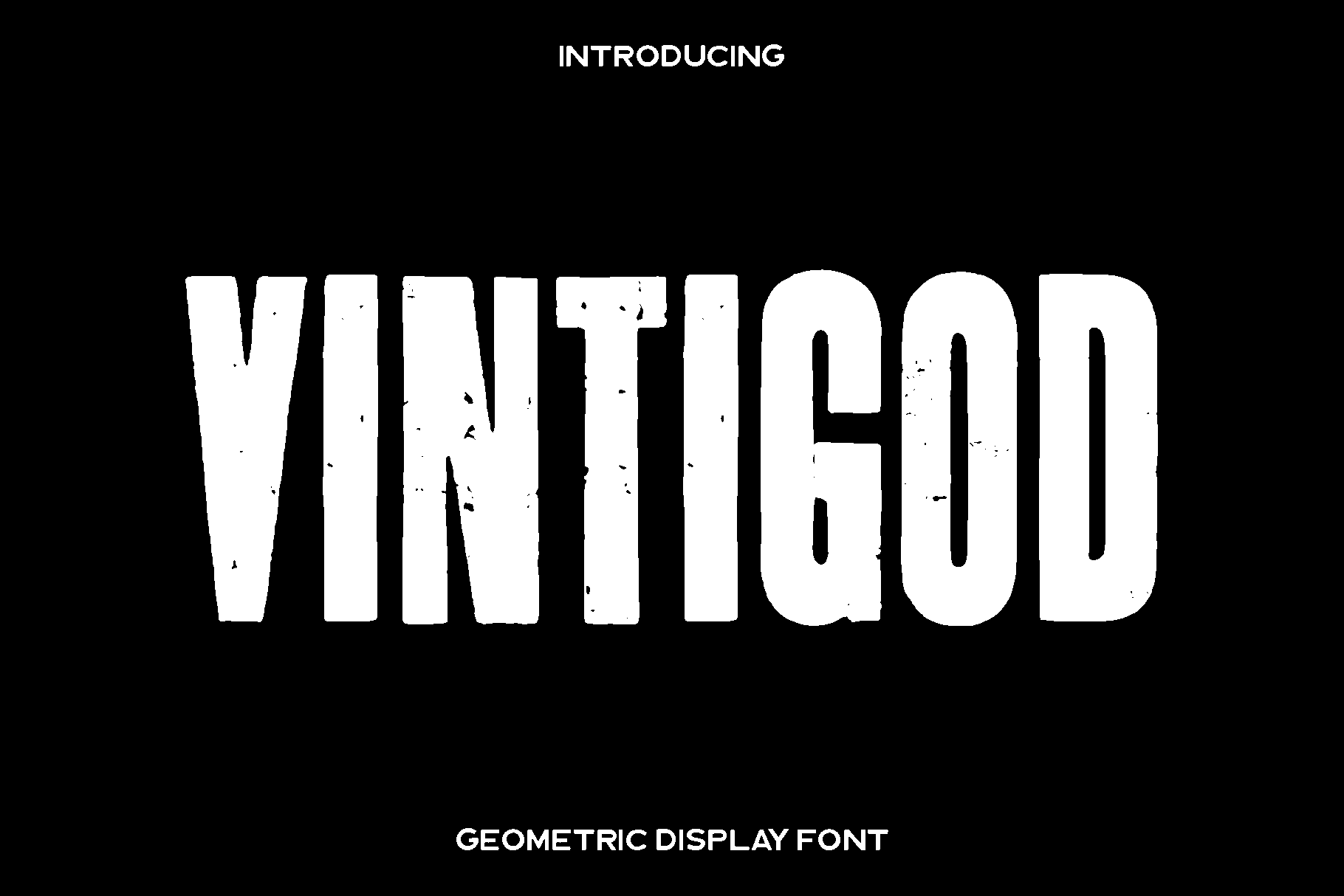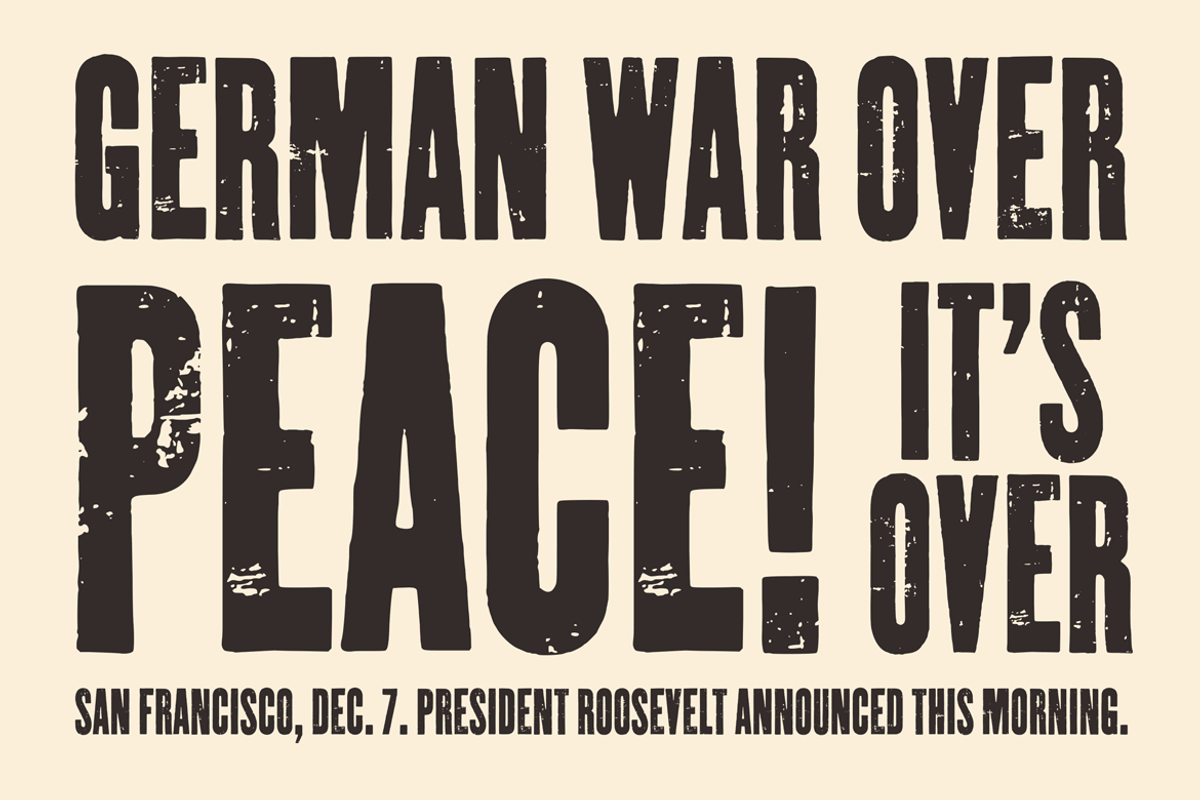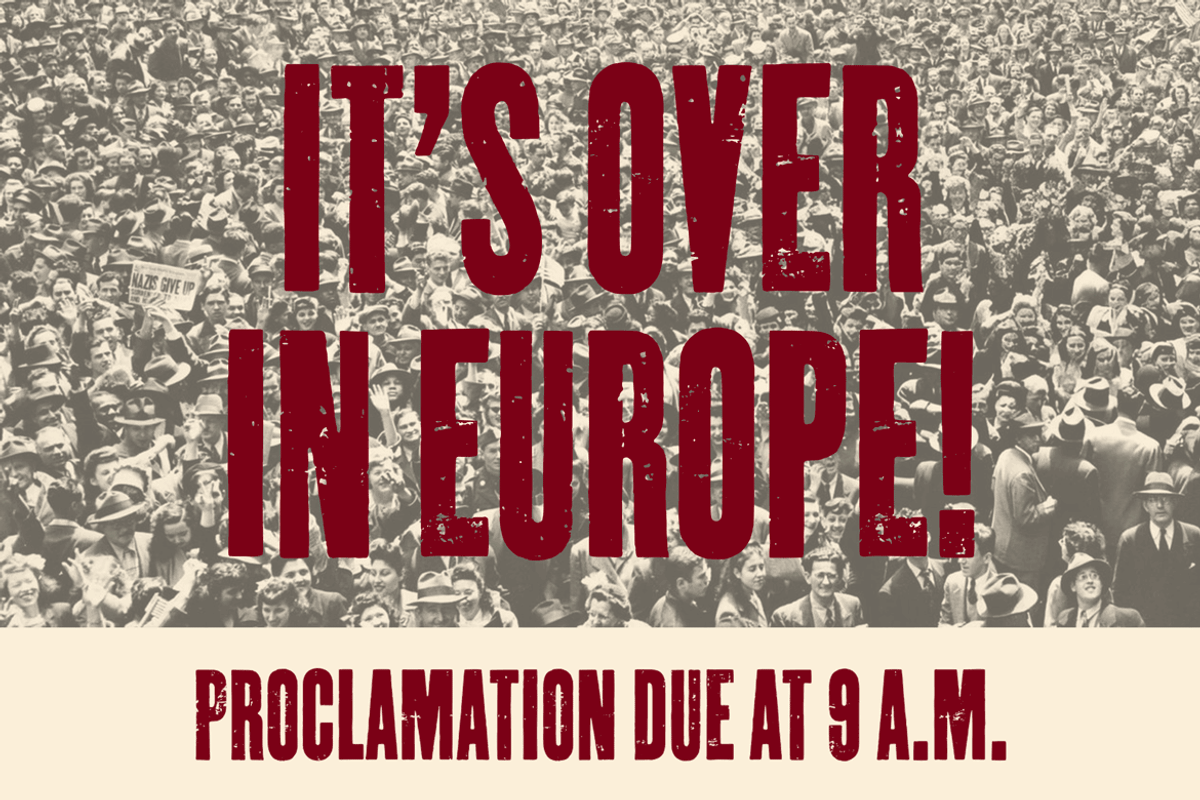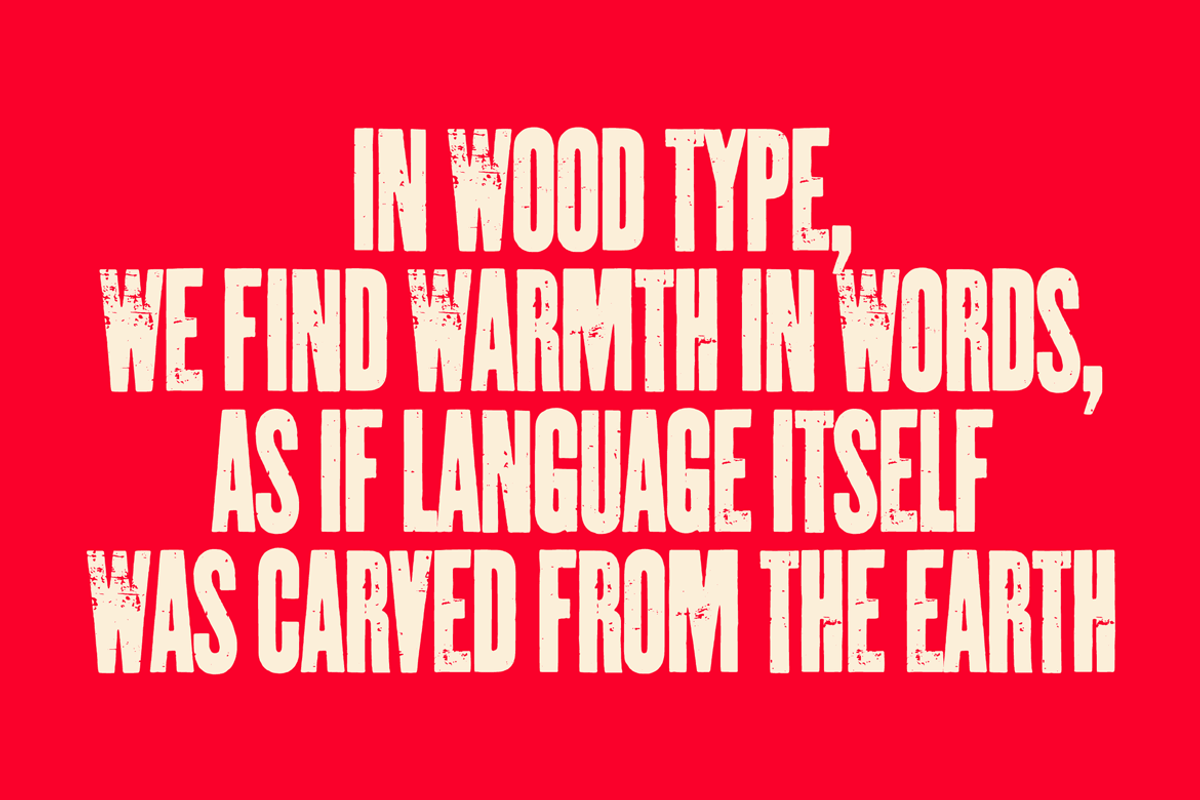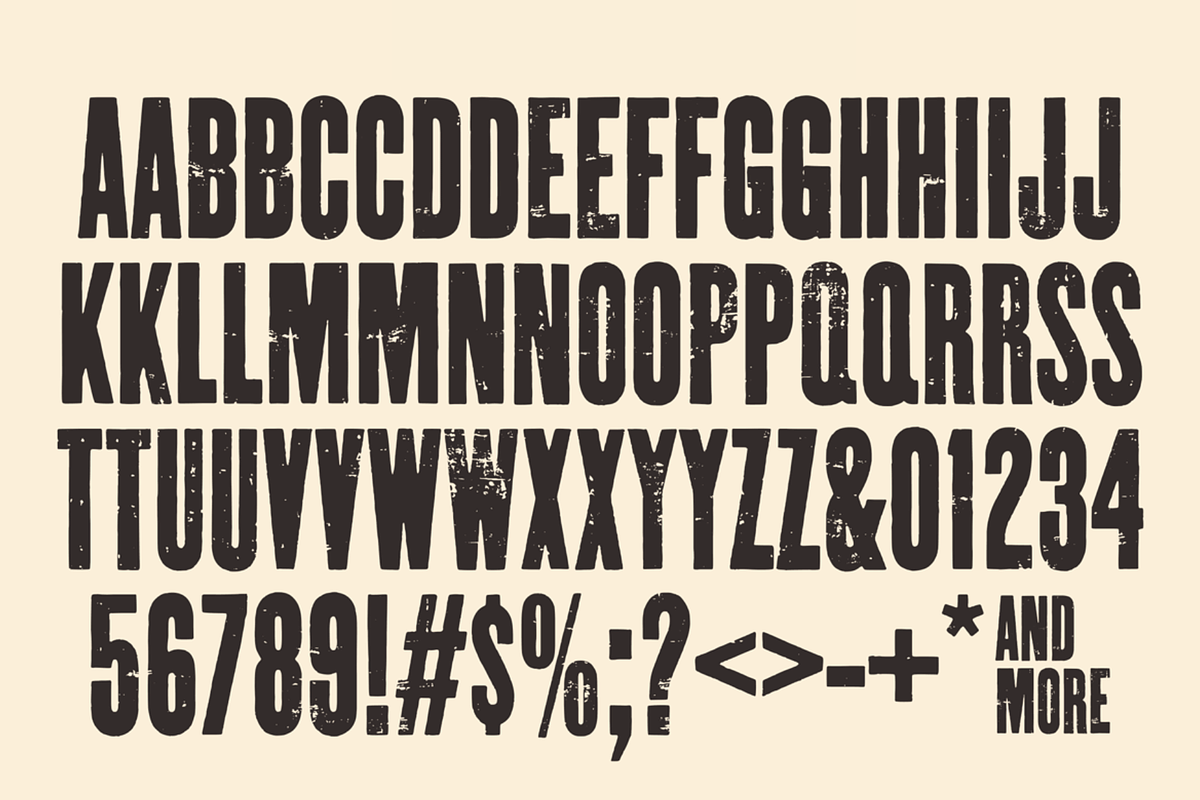
Vintigod - Sans Serif Font
Vintigod is a handcrafted display font inspired by the authentic charm of traditional woodtype printing. Designed to capture the rugged character and organic textures found in real wood cuts, Vintigod brings depth, warmth, and a tactile sense of craftsmanship to your typography. Each letter carries subtle imperfections that feel raw and natural, echoing the artistry of manual printing and the nostalgic beauty of vintage print shops.
This font shines in projects that embrace rustic personality and handcrafted style. Whether you are creating vintage posters, rustic branding, outdoor themed packaging, apparel graphics, signage, or promotional materials with an old world charm, Vintigod adds a bold and expressive touch. Its textured character allows your designs to feel real, grounded, and full of story, making it an ideal choice for creatives who want more than a clean digital look.
Vintigod transforms simple text into something visually striking and emotionally rich. It brings the spirit of tradition into the modern design world, giving your work an authentic wood printed appearance that stands out in both digital and print environments.
Vintigod Font Features:
• Uppercase letters
• Numerals and punctuation